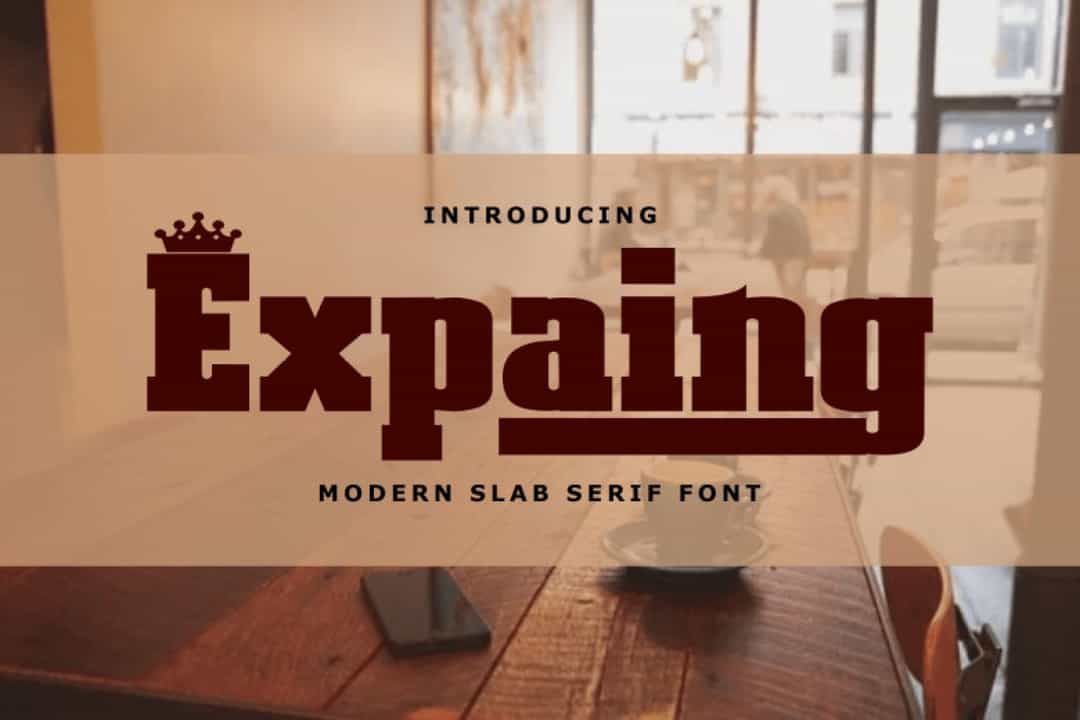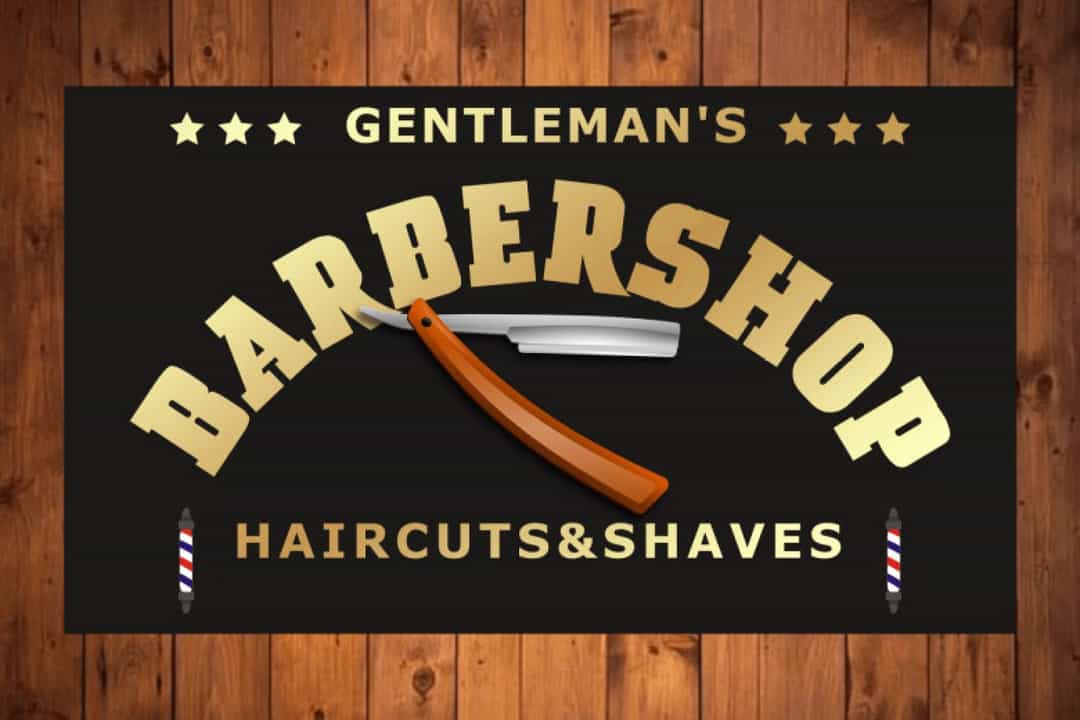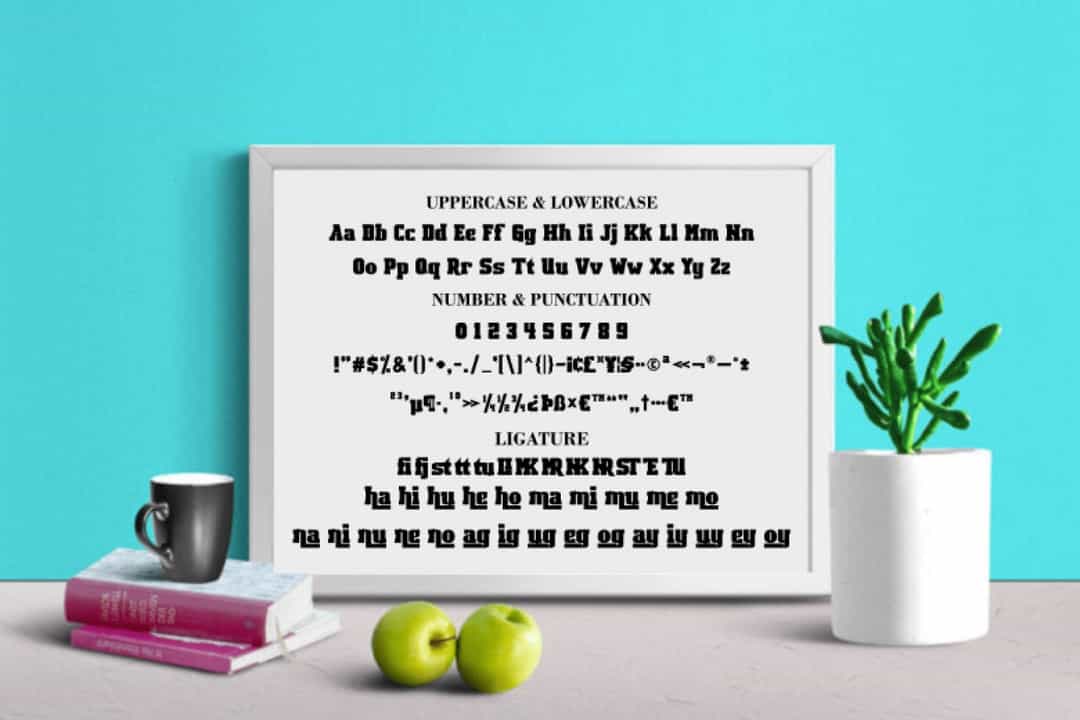
Contemporary is a modern yet elegant slab serif font that has large and huge letters that look great especially in branding, logos, for wedding as well as fashion magazines, social media posts, adverts, packaging for product design, label packaging design, photography, etc.